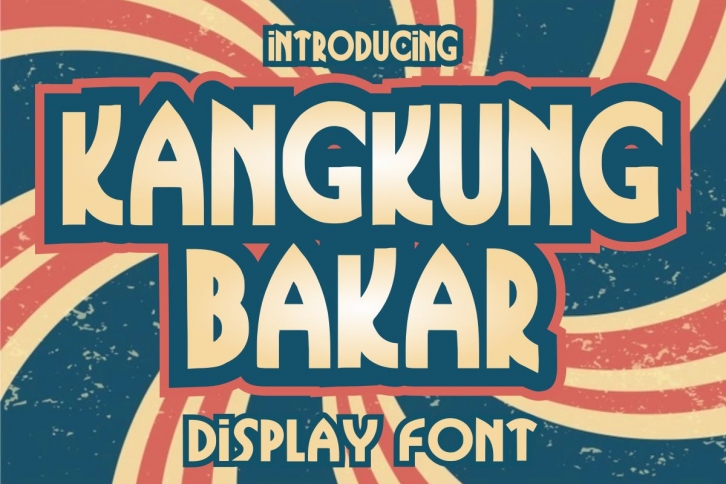
Kangkung Bakar a vintage and cool display font. Whether you’re using it for crafts, digital design, presentations, or greeting cards, this font has the potential to become your favorite go-to font, no matter the occasion!